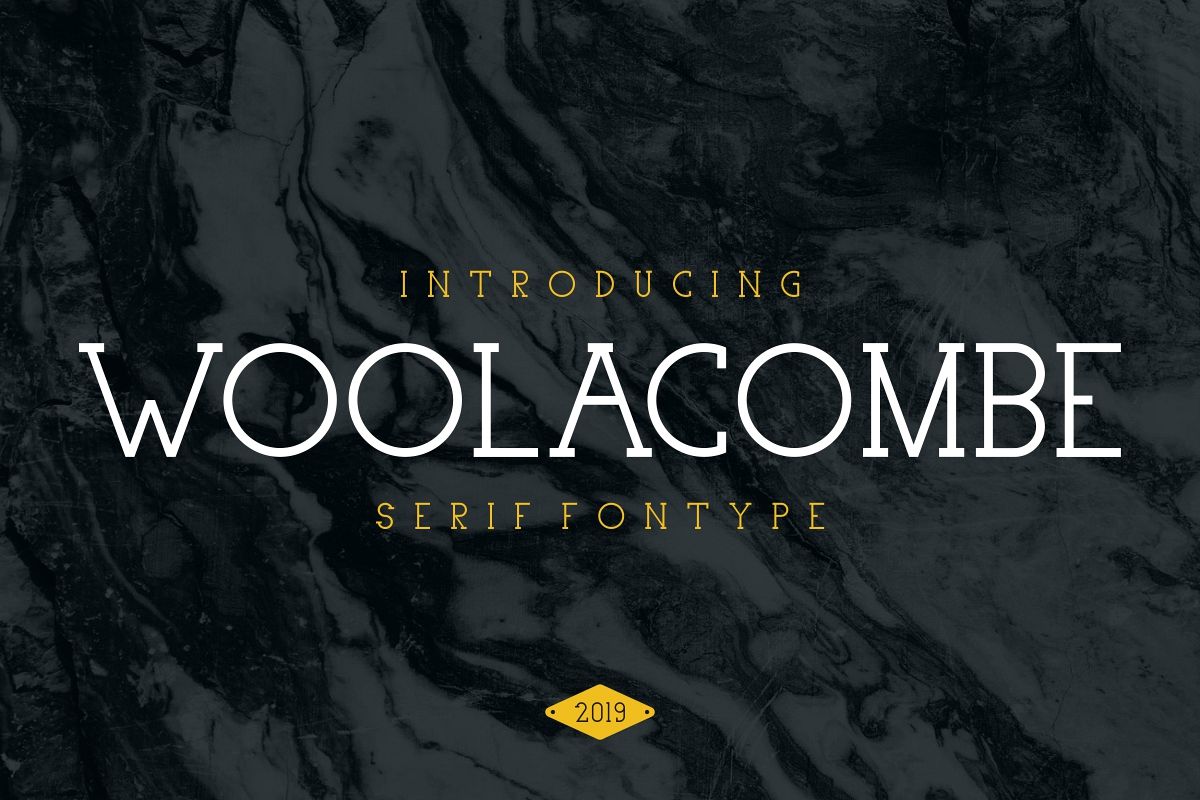
Woolacombe
Woolacombe is a serif family font. with special shape and unique look.It’s an elegant font for many purposes : logo, branding, stationery, business card, poster, flyer etcThis font will Work on PC & Mac with Simple installations. Accessible in the Adobe Illustrator, Adobe Photoshop, Adobe InDesign, even work on Microsoft Word. It’s also PUA Encoded Characters – Fully accessible without additional design software.Purchase with confidence! =)